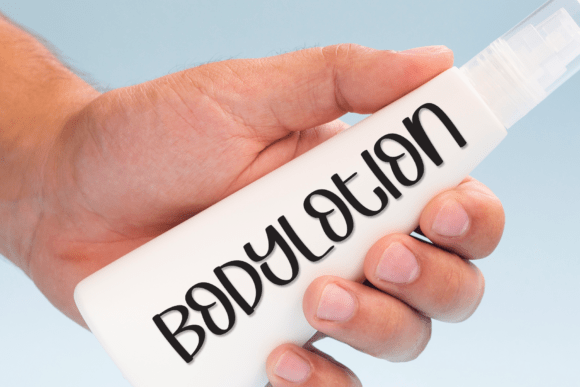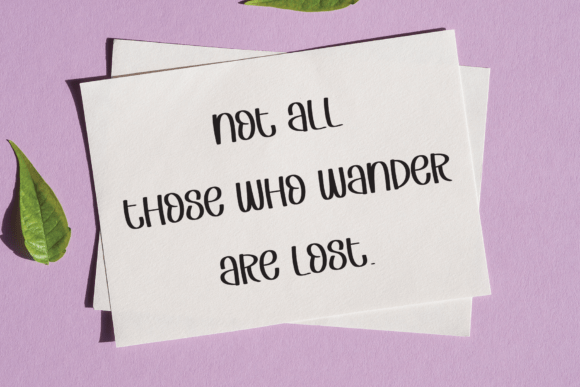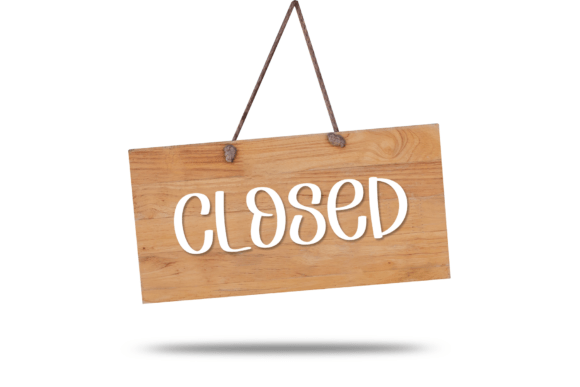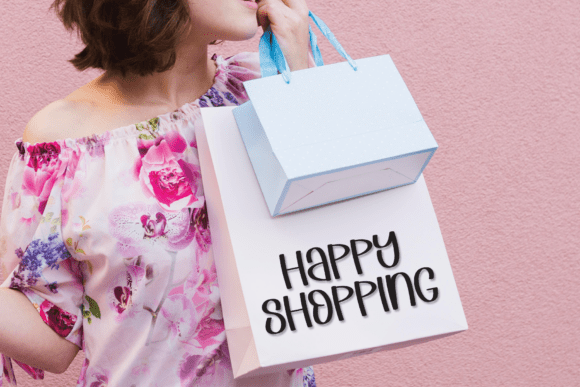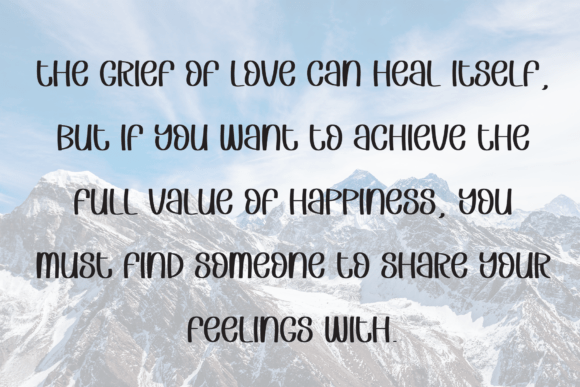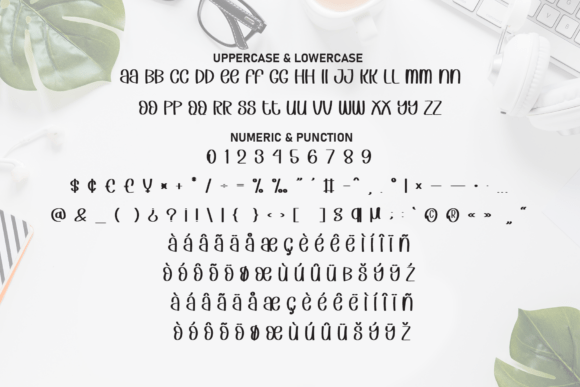
Happy Wednesday Font: Elevate Your Designs with Our Special Creative Products
Are you tired of using the same old fonts for your designs? Look no further! Our Happy Wednesday Font is here to take your creations to the next level. With its unique and stylish letters, this font is perfect for a variety of projects, from wall displays and wedding invitations to social media posts and product packaging.
What Makes Our Font So Special?
Our Happy Wednesday Font is designed to provide you with an extraordinary experience. The latest style letters are carefully crafted to add a touch of elegance and sophistication to your designs. Whether you’re a designer, crafter, or DIY enthusiast, this font is sure to impress.
Endless Possibilities for Your Designs
Our Happy Wednesday Font is versatile and can be used for a wide range of projects, including:
- Wall displays and signage
- Social media post logos and graphics
- Advertisements and marketing materials
- Product packaging and design
- Labels and branding
- Photography and watermarks
- Invitations and event materials
- Stationery and paper crafts
Why Choose Our Font?
Whether you’re a professional designer or a DIY crafter, our Happy Wednesday Font is perfect for you. With its unique and stylish letters, this font is sure to add a touch of personality to your designs. Plus, its versatility makes it suitable for a wide range of projects.
Experience the Best of Both Worlds
Our Happy Wednesday Font offers the best of both worlds – style and functionality. With its unique letters and compatibility with popular design software, this font is sure to become your go-to choice for all your design needs.
Make Your Designs Stand Out
In a world where designs are constantly competing for attention, it’s essential to stand out from the crowd. Our Happy Wednesday Font can help you do just that. With its stylish letters and versatility, this font is sure to make your designs shine.
In conclusion, our Happy Wednesday Font is the perfect addition to your design arsenal. With its unique and stylish letters, versatility, and compatibility with popular design software, this font is sure to elevate your designs to new heights. So why wait? Get your hands on this amazing font today and start creating extraordinary designs that will leave a lasting impression.